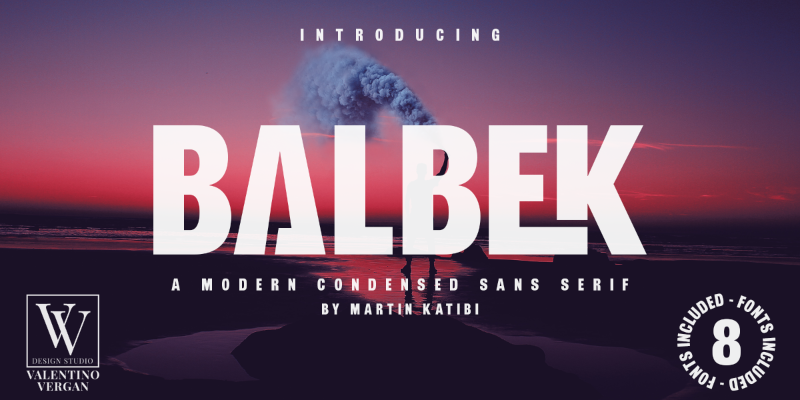
| Font name: | Balbek |
| Author: | Valentino Vergan |
Balbek font Description Introducing �Balbek� � A modern �condensed� sans serif ligature typeface. Designed by graphic designer Martin Katibi. The balbek font is an eye catching heavy and condensed sans serif type face. The inspiration for this font were other condensed sans serif such as Gabo Drive and Impact. The Balbek font is great for use on headlines, advertisements, product packaging, newspapers and posters. Balbek fully supports multilingual characters, it also come with a full set of alternative uppercase letters, ligature and small cap. All these features will make your next project standout. The font comes in eight styles, which are Regular, Cut, Outline and Soft. Each of these font styles comes with an oblique version. This font is free for PERSONAL USE. If you need more information you can contact me at: valentinovergan@gmail.com _____ FOR PERSONAL AND COMMERCIAL USE, please download here: https://crmrkt.com/4e38Jm https://www.creativefabrica.com/product/balbek/ref/2320189/ https://www.myfonts.com/fonts/valentino-vergan/balbek/ _____ My work: More... |